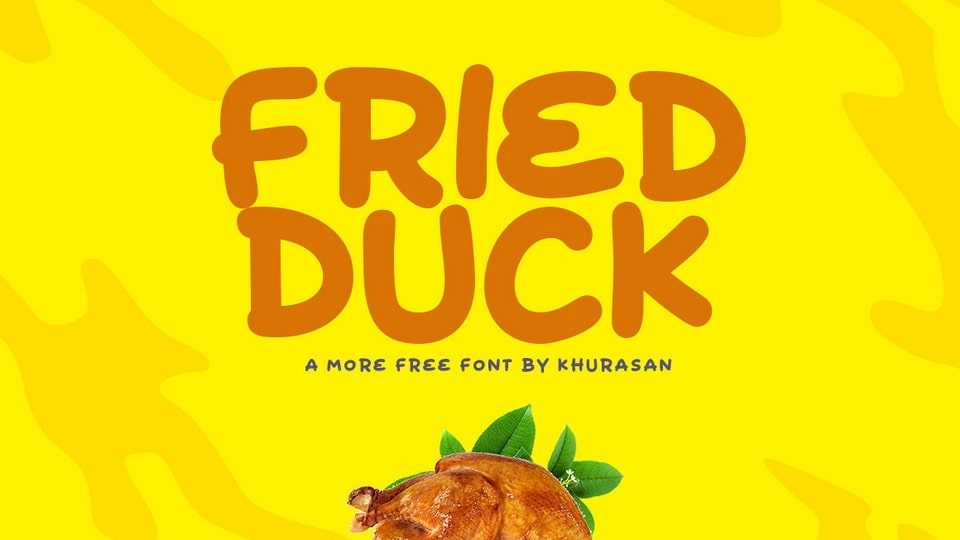
Download Fried Duck font, a hand-drawn comic typeface that brings your stories to life with a playful and expressive touch. Fried Duck font is the perfect fusion of whimsy and creativity, capturing the spirit of comic book lettering.